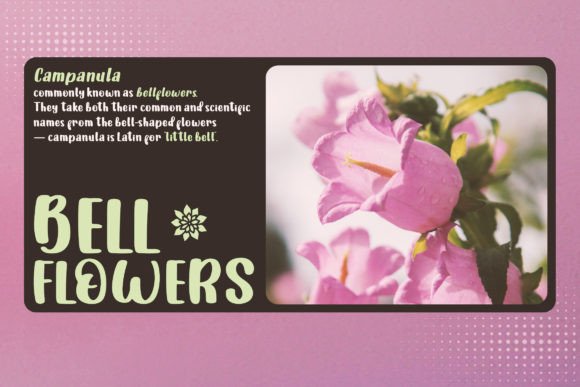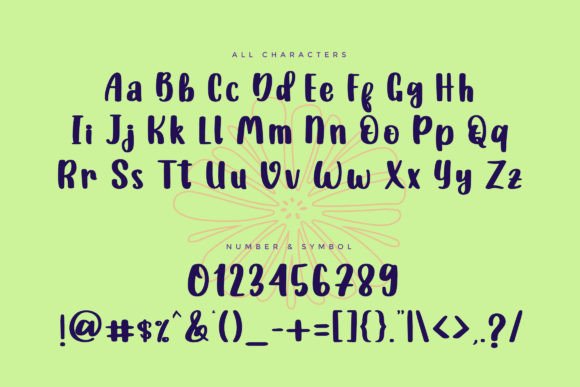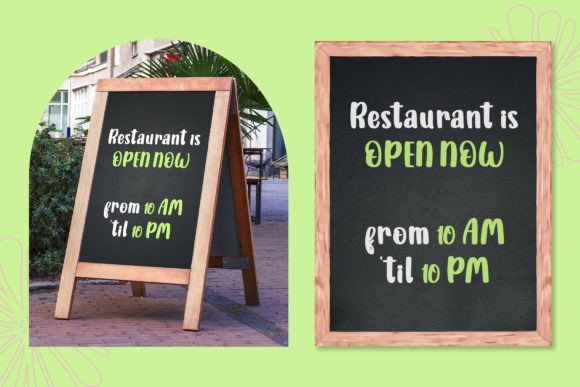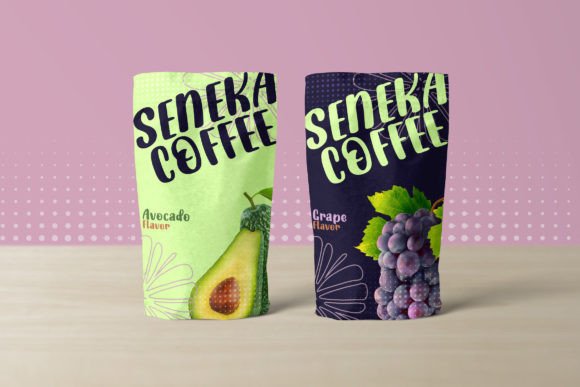
Introduction to Eve Bells Font
“Eve Bells” is a playful handwriting font special for holidays display, that puts a smile on your project and will inspire you to create something fun and memorable.
“Eve Bells” will help you to create special and touching typographical designs for holiday projects, for every day or the happiest day in your life, happy birthday cards, baby showers, greeting cards, headings, flyers, product packaging, book cover, printed quotes, logos, Christmas project, and many more It is a really universal and modern font.